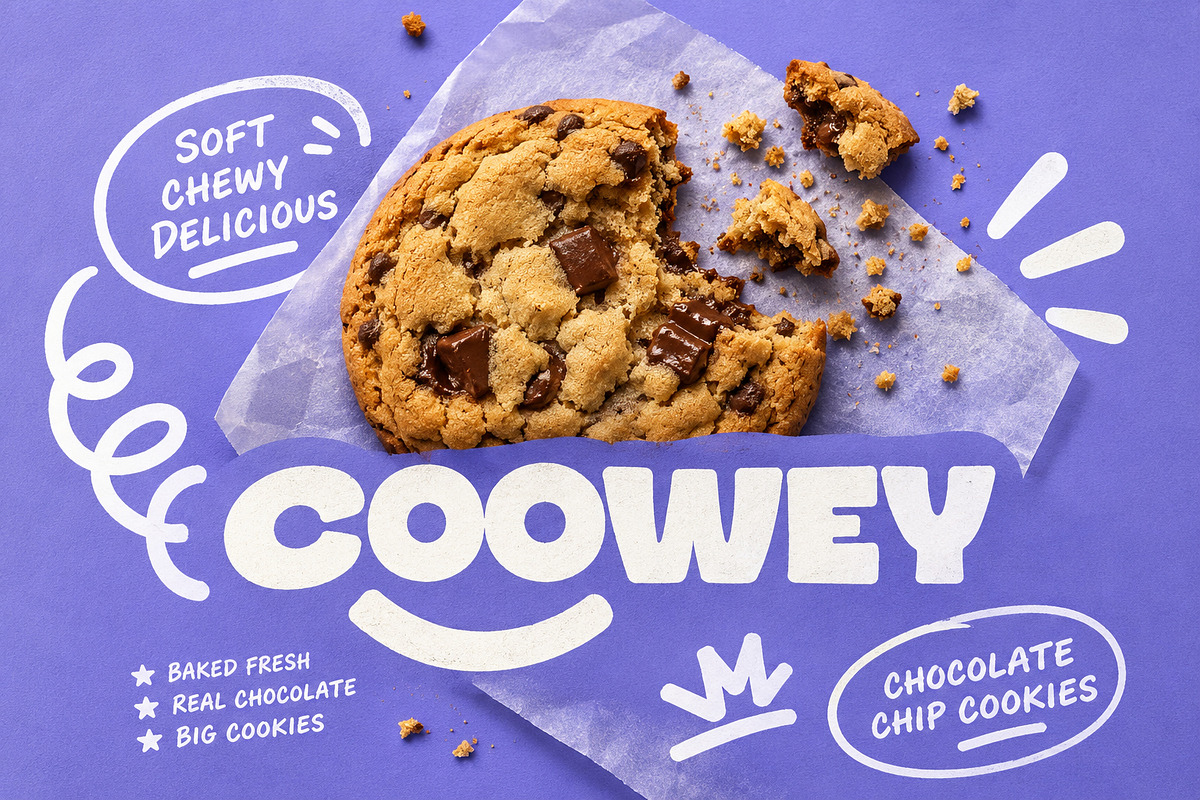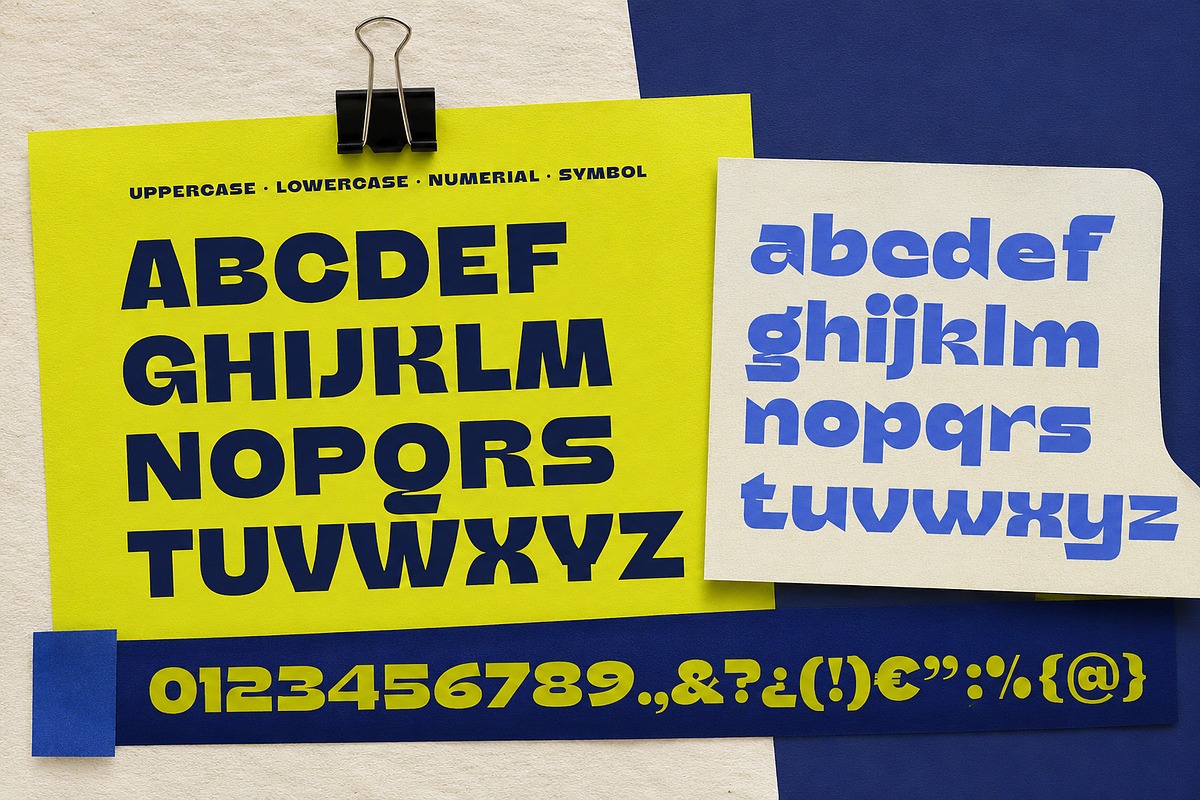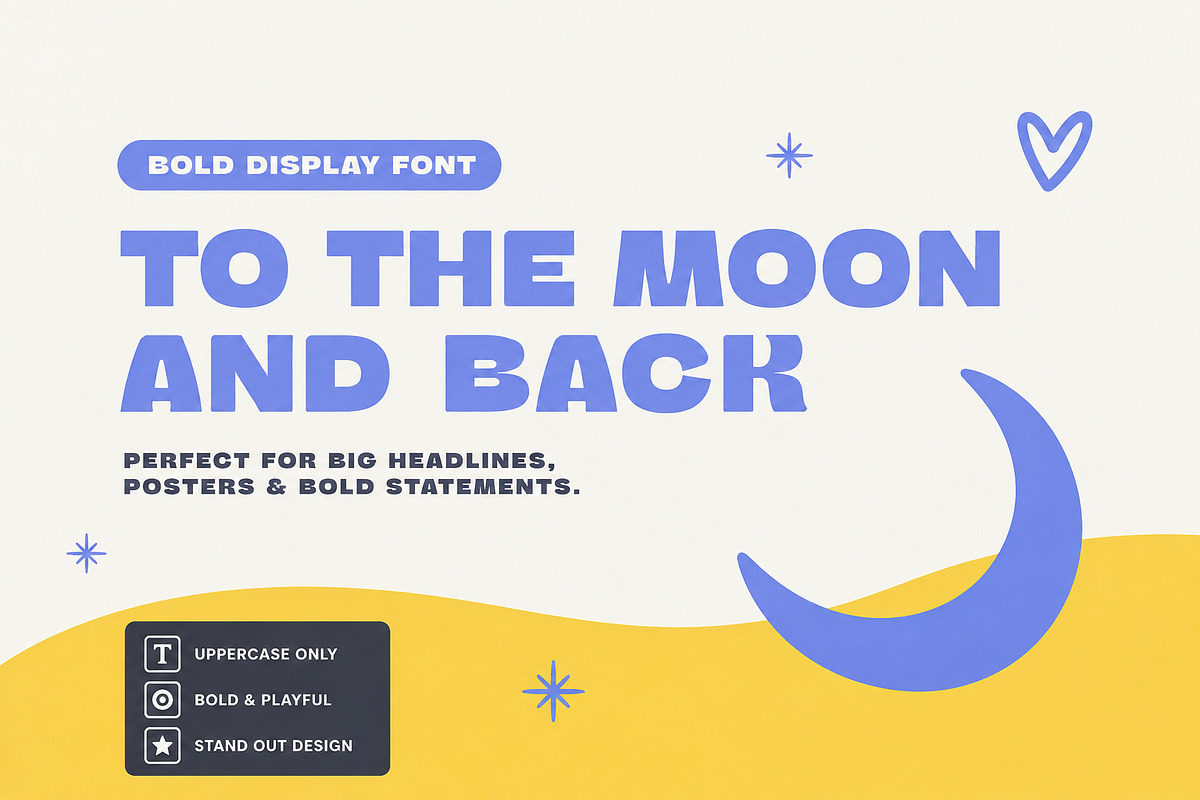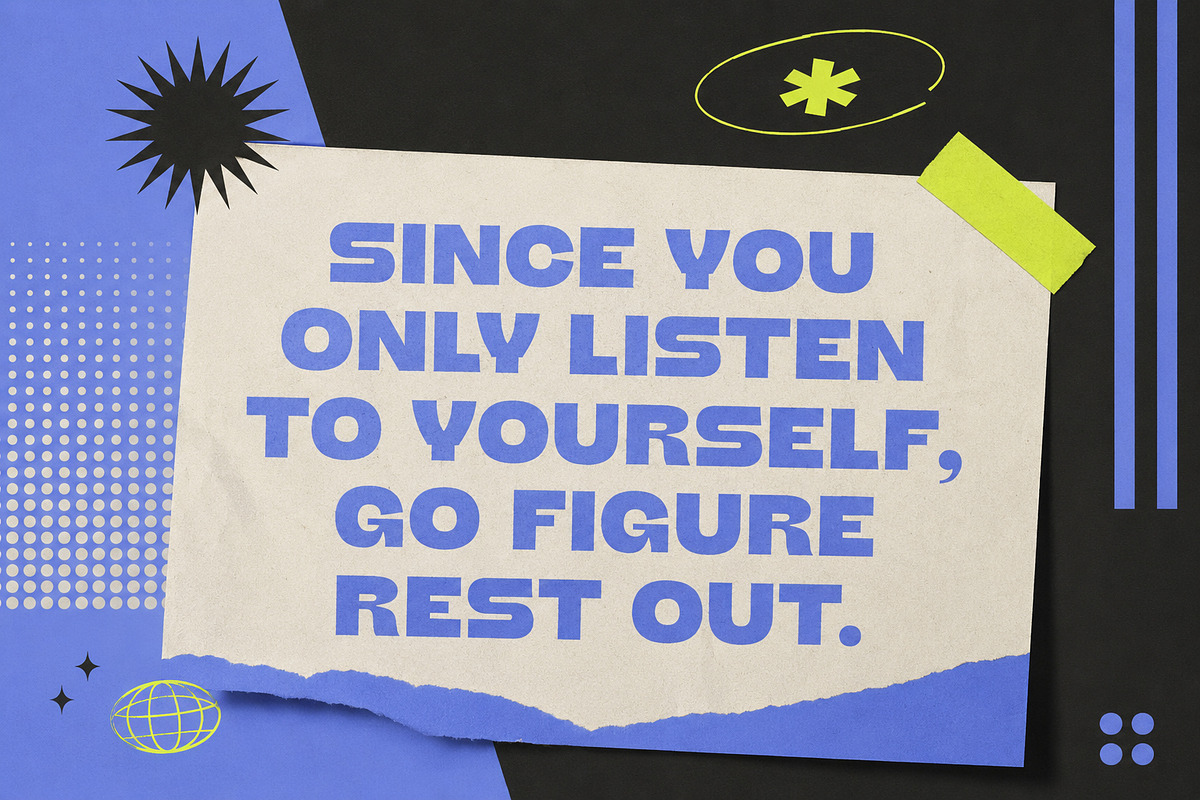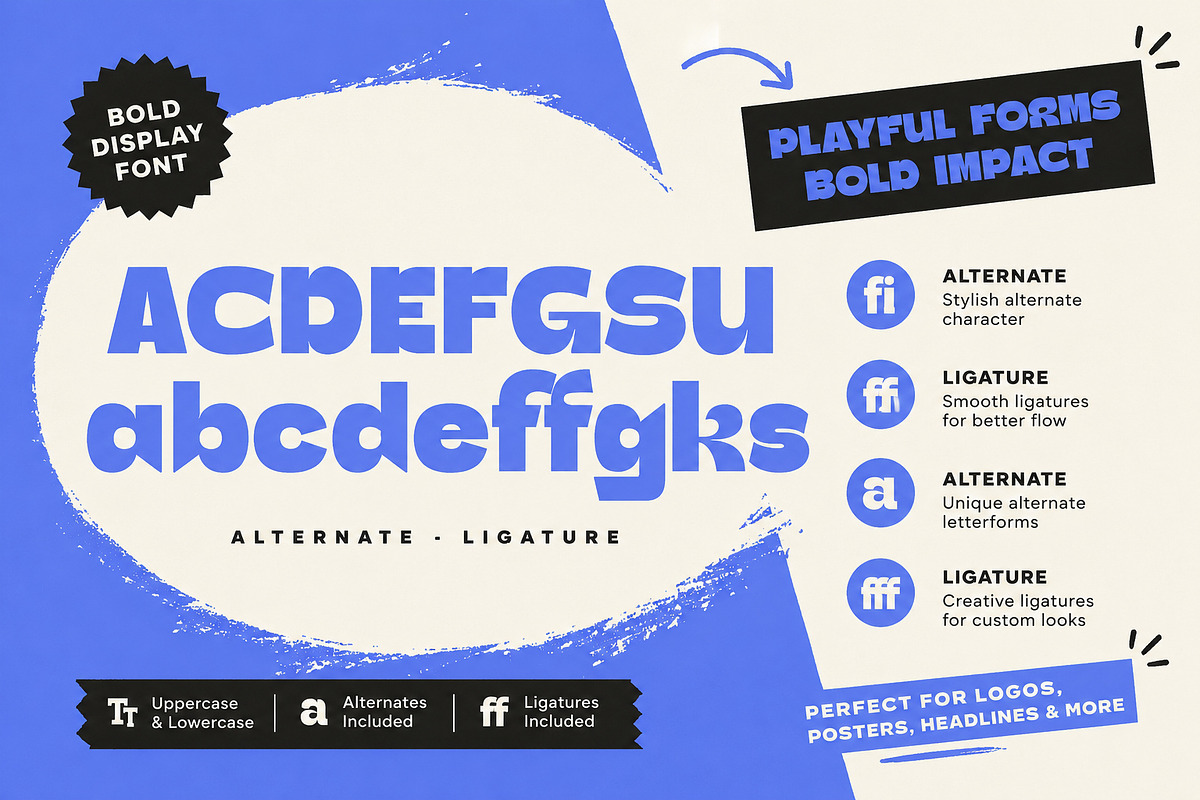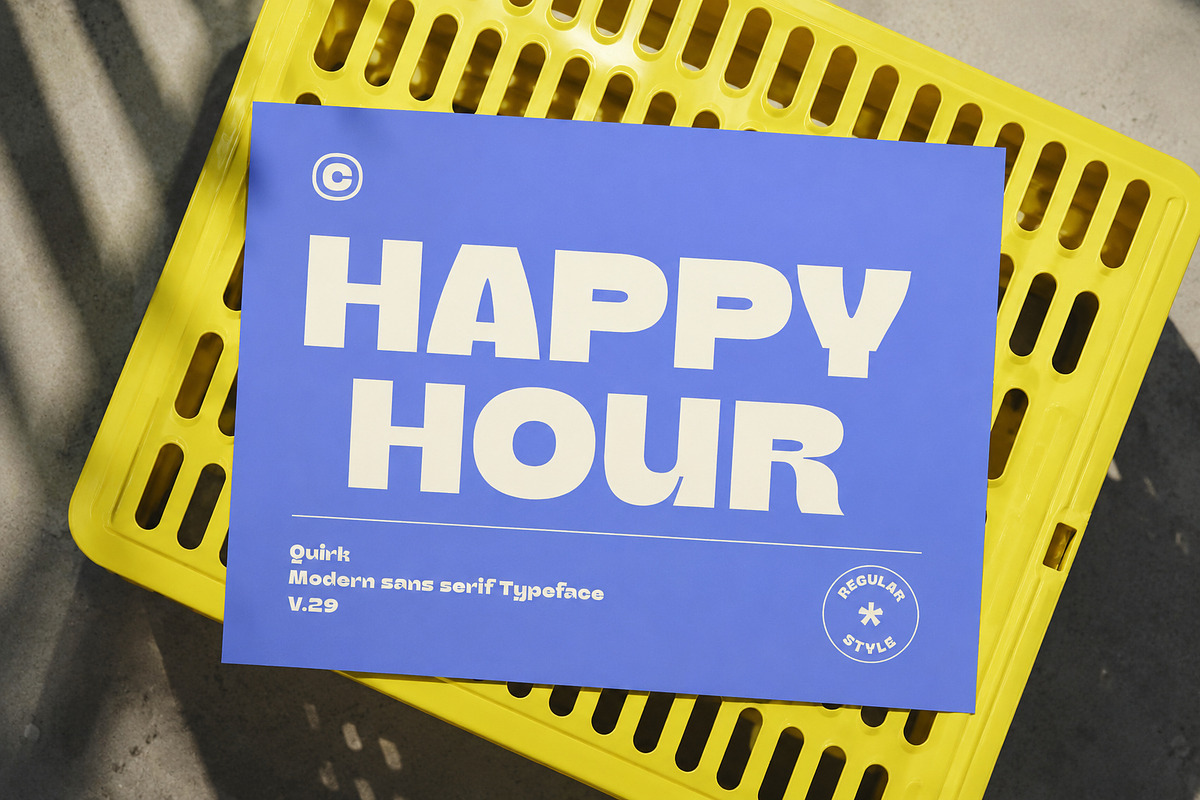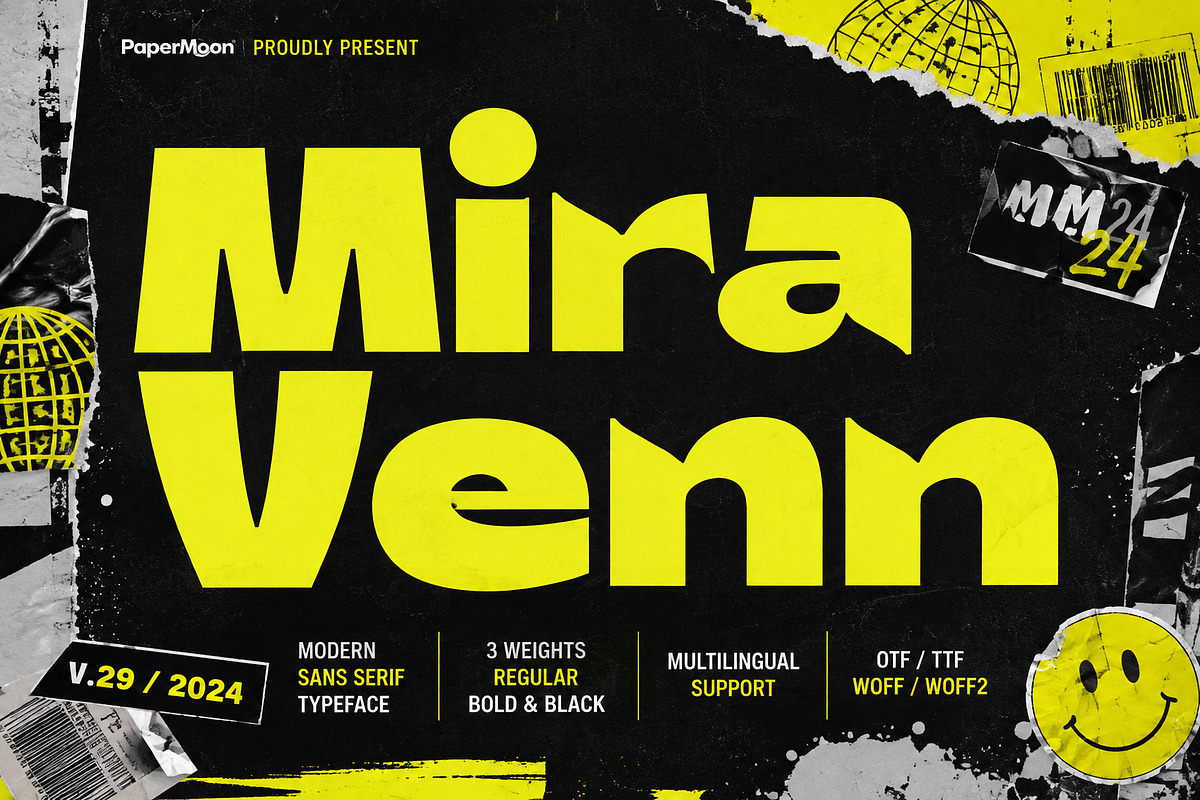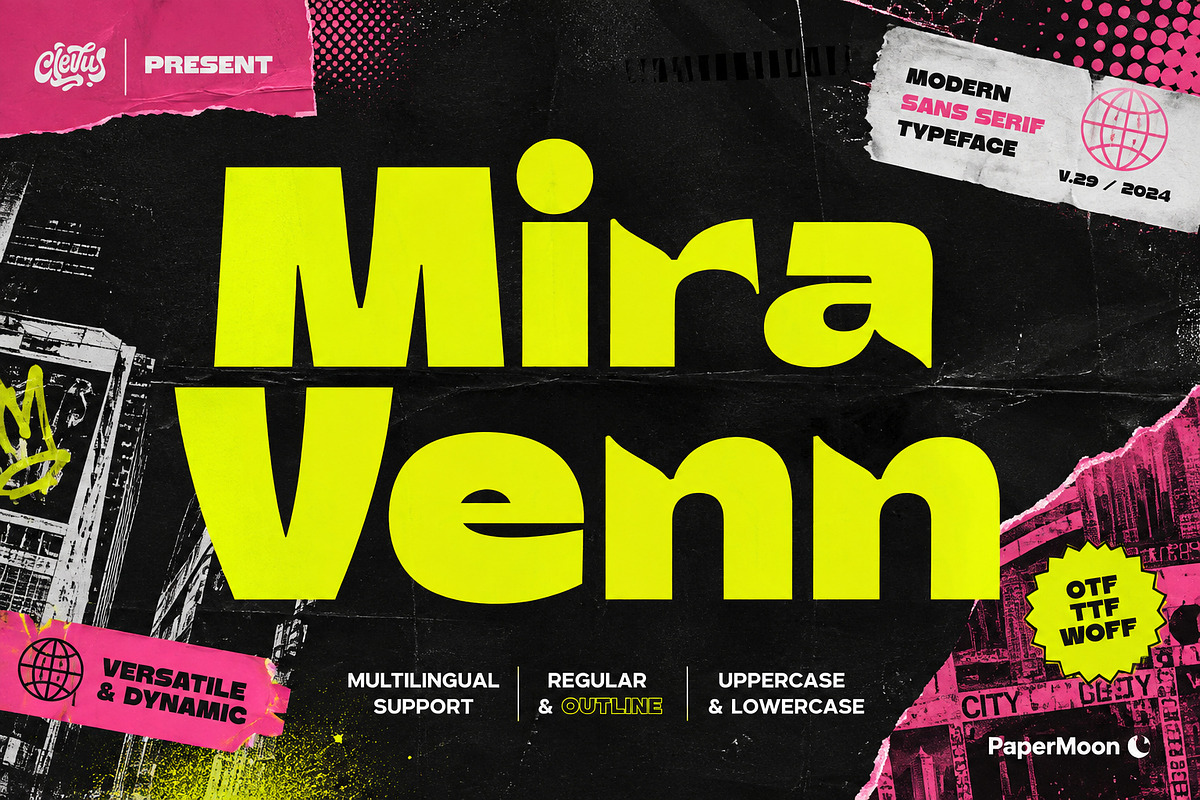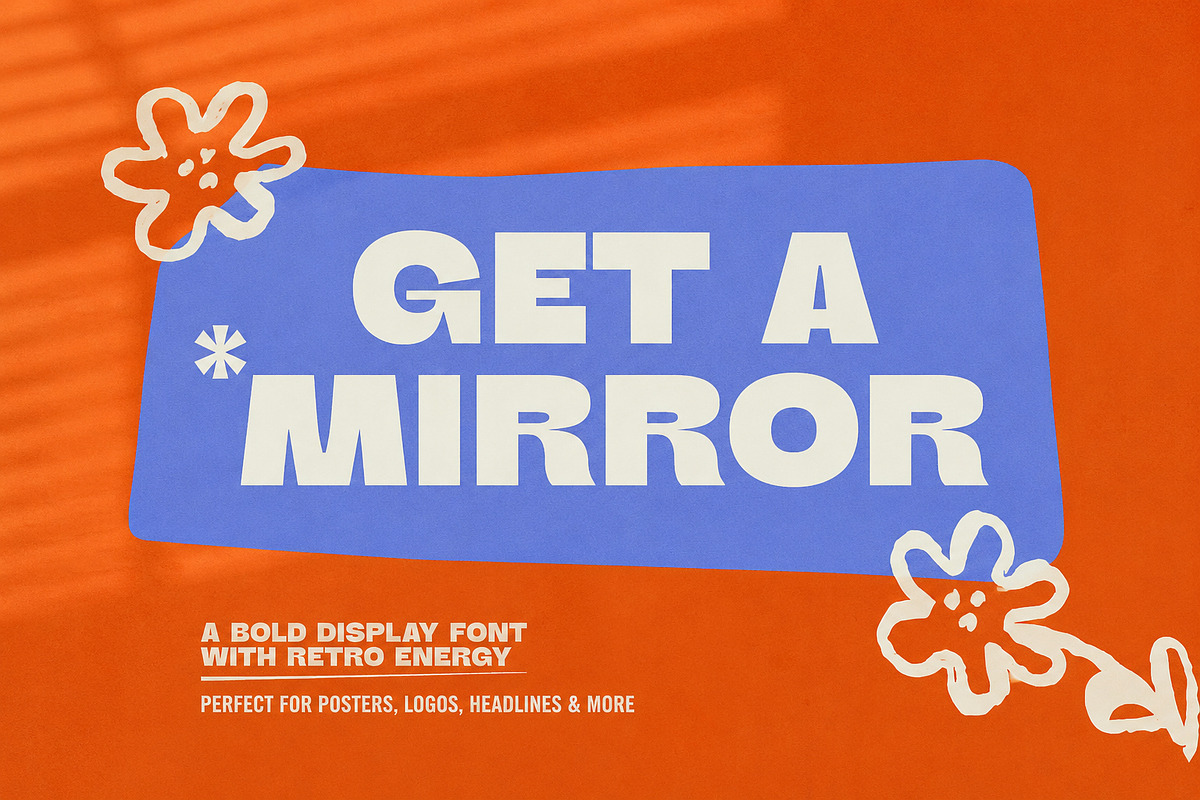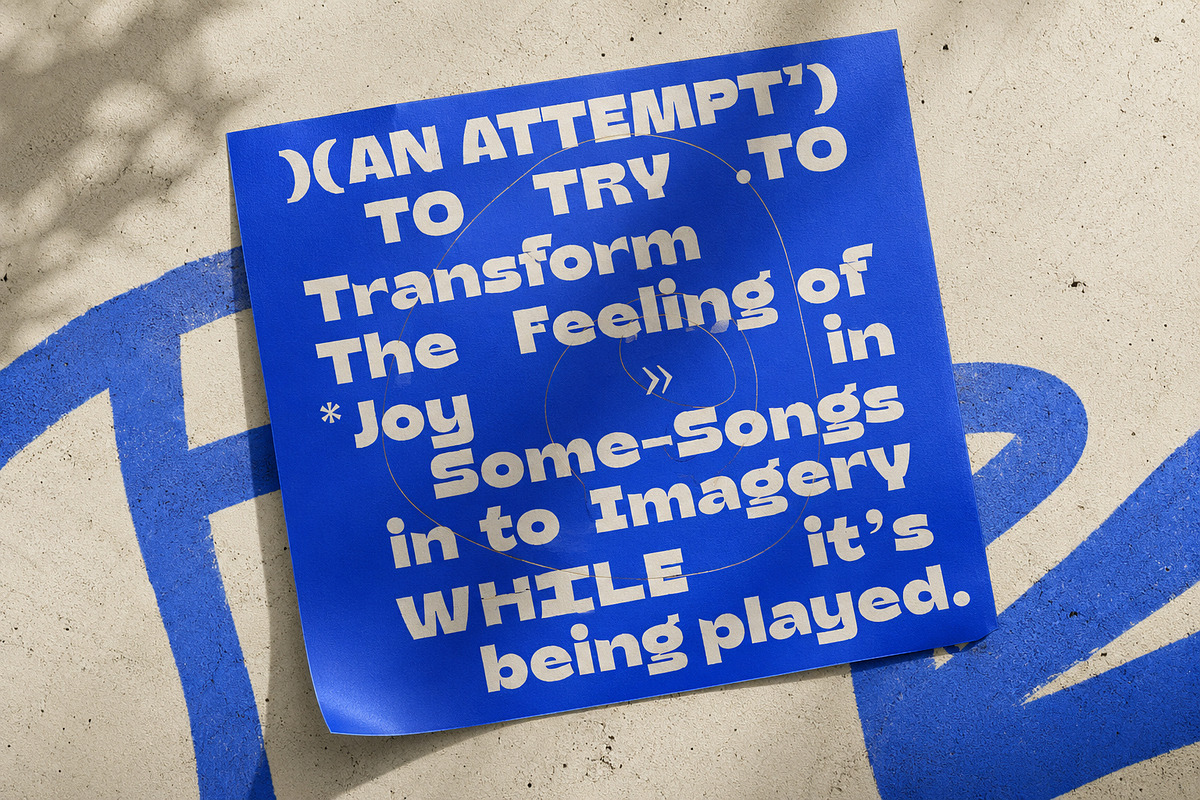
Mira Venn Chunky Sans
Standard sans serif lettering can feel a little too safe. Mira Venn brings chunky, funky energy to modern display typography, pairing bold forms with playful movement and soft corners.
Built for expressive headlines and memorable brand moments, Mira Venn gives your lettering a friendly presence without losing its strong visual impact. Use it for logos, branding, posters, packaging, social graphics, editorial layouts, campaign titles, and other projects that need a modern sans serif with more personality.
Chunky, bold letterforms: Make short headlines, wordmarks, and display text stand out with a substantial visual voice.
Soft corners and playful shapes: Add warmth and approachability to contemporary typography.
40 alternates and ligatures: Bring variation to repeated letters and create more distinctive display settings.
Complete character coverage: Includes letters, numbers, symbols, and punctuation for everyday typographic work.
Mira Venn supports Danish, English, Estonian, Filipino, Finnish, French, Friulian, Galician, German, Gusii, Indonesian, Irish, Italian, Luxembourgish, Norwegian Bokmal, Norwegian Nynorsk, Nyankole, Oromo, Portuguese, Romansh, Rombo, Spanish, Swedish, Swiss-German, and Uzbek Latin. That multilingual range helps you create international branding, packaging, campaigns, and editorial graphics with broader Latin-language coverage.
Give your next headline a softer edge and a louder voice with Mira Venn.